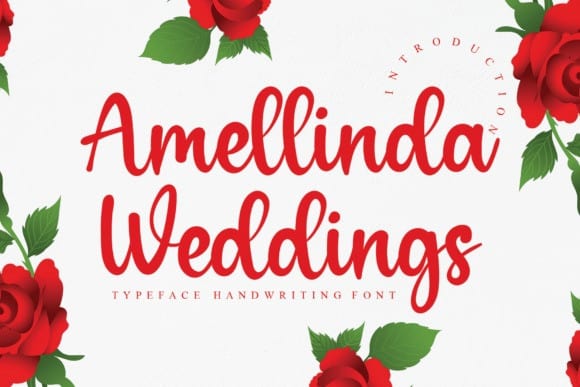
Amellinda Weddings Font
Amellinda Weddings Script Font, designed by lontong lodeh is a delicate, elegant and flowing handwritten font. It has beautiful and well balanced characters and as a result, it matches a wide pool of designs. It looks stunning on wedding invitations, thank you cards, quotes, greeting cards, logos, business cards and every other design which needs a handwritten touch.